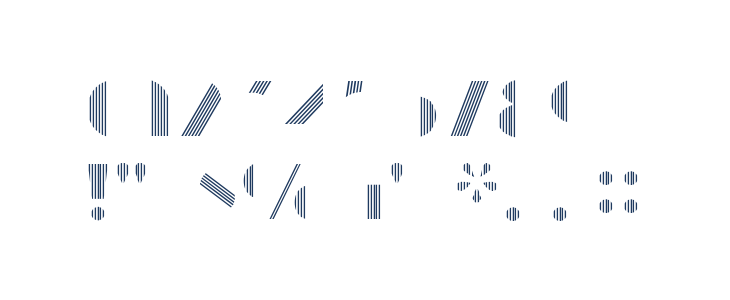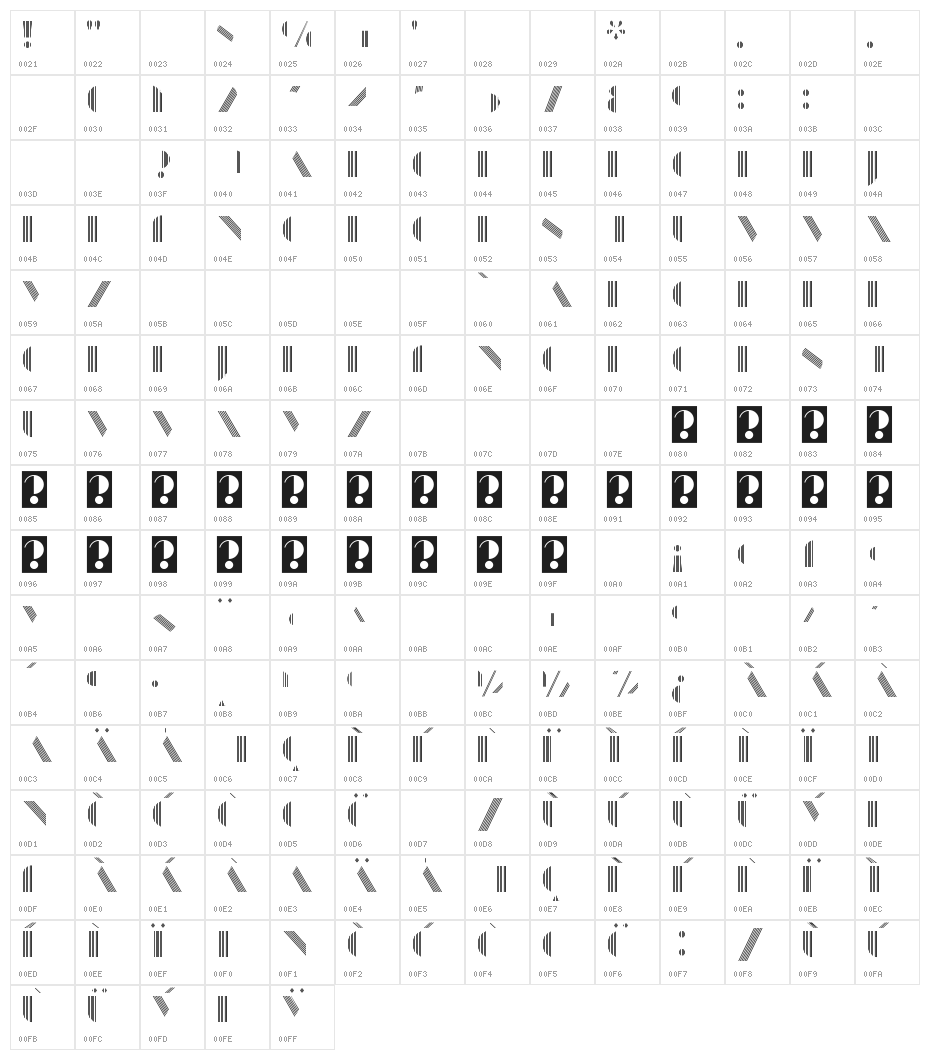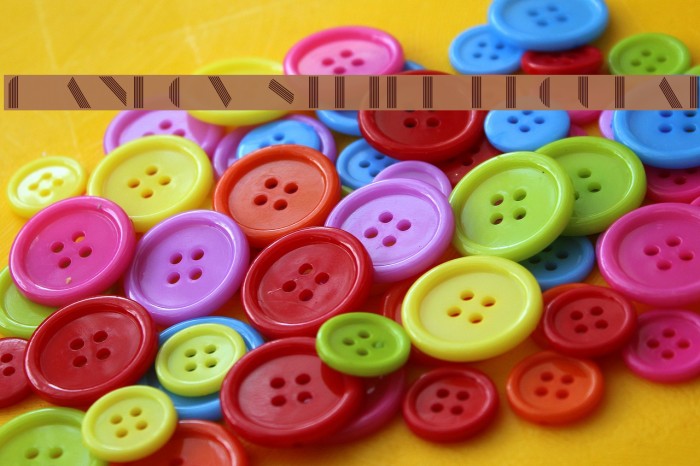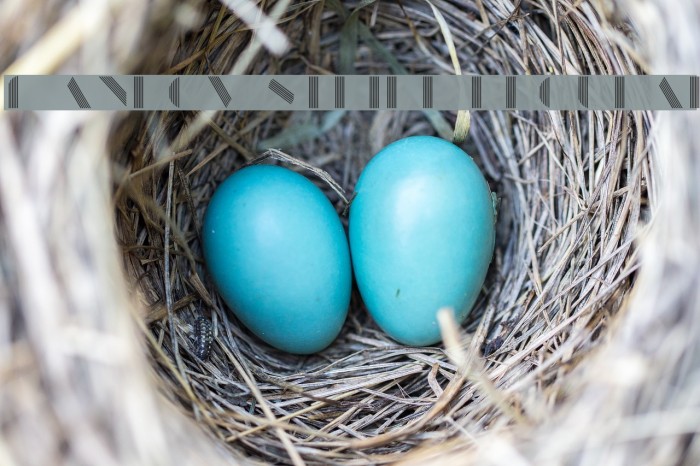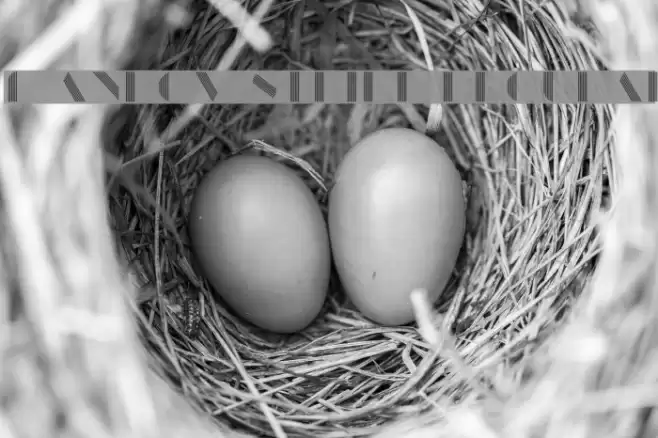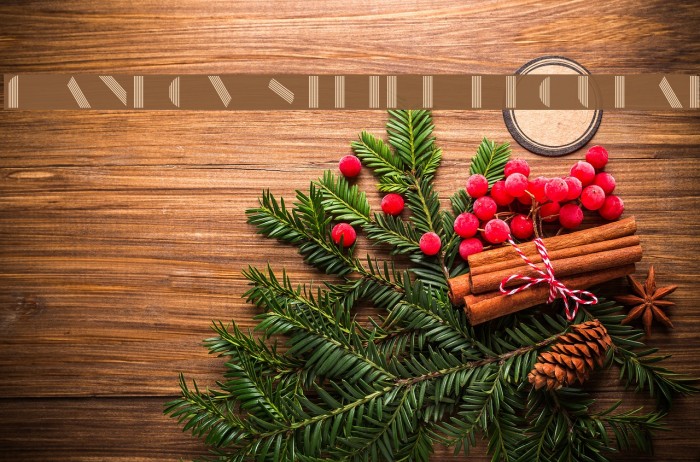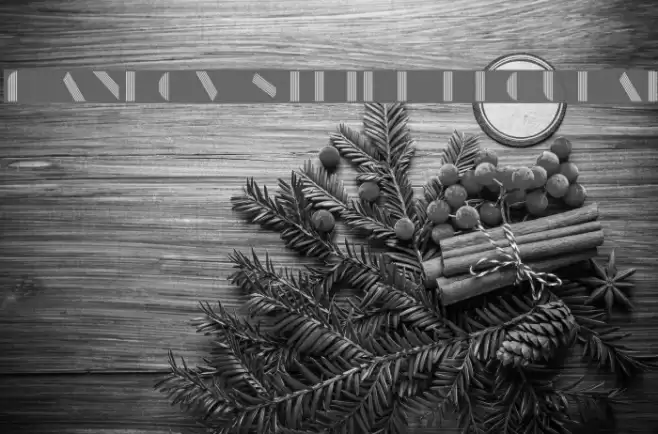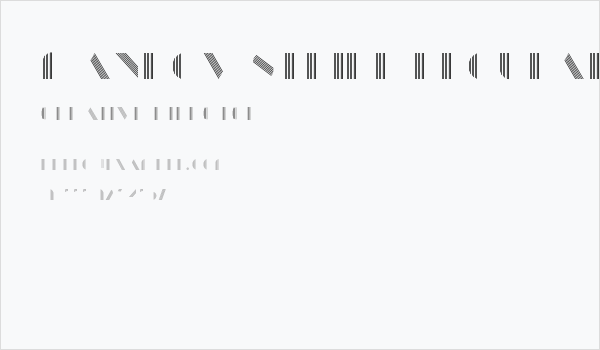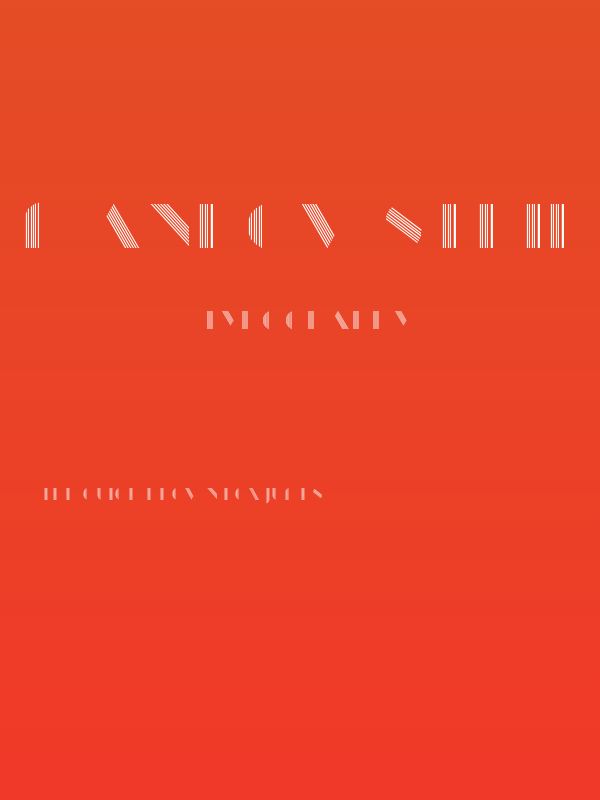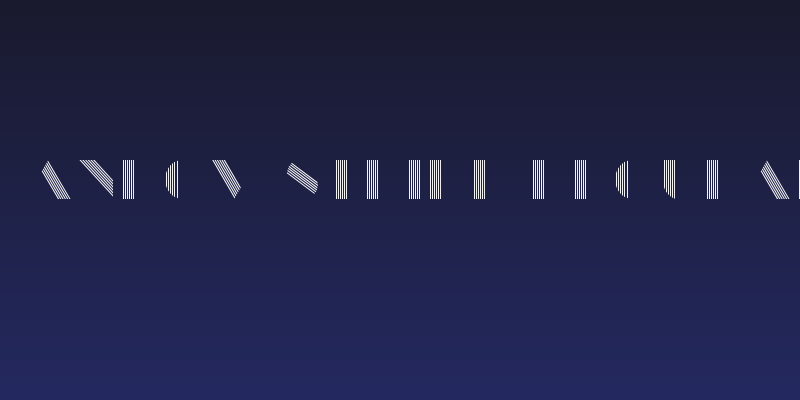
ManbowStripe-Regular Font
ManbowStripe-Regular Description
This font features a unique and striking design characterized by its use of parallel lines to form each character. The lines are evenly spaced, creating a striped effect that gives the font a modern and abstract appearance. The geometric shapes of the letters are distinct, with sharp angles and clean edges, making it highly decorative. The font maintains a consistent line thickness throughout, contributing to its uniform look. It is visually engaging and stands out due to its unconventional style, making it suitable for creative and artistic projects.